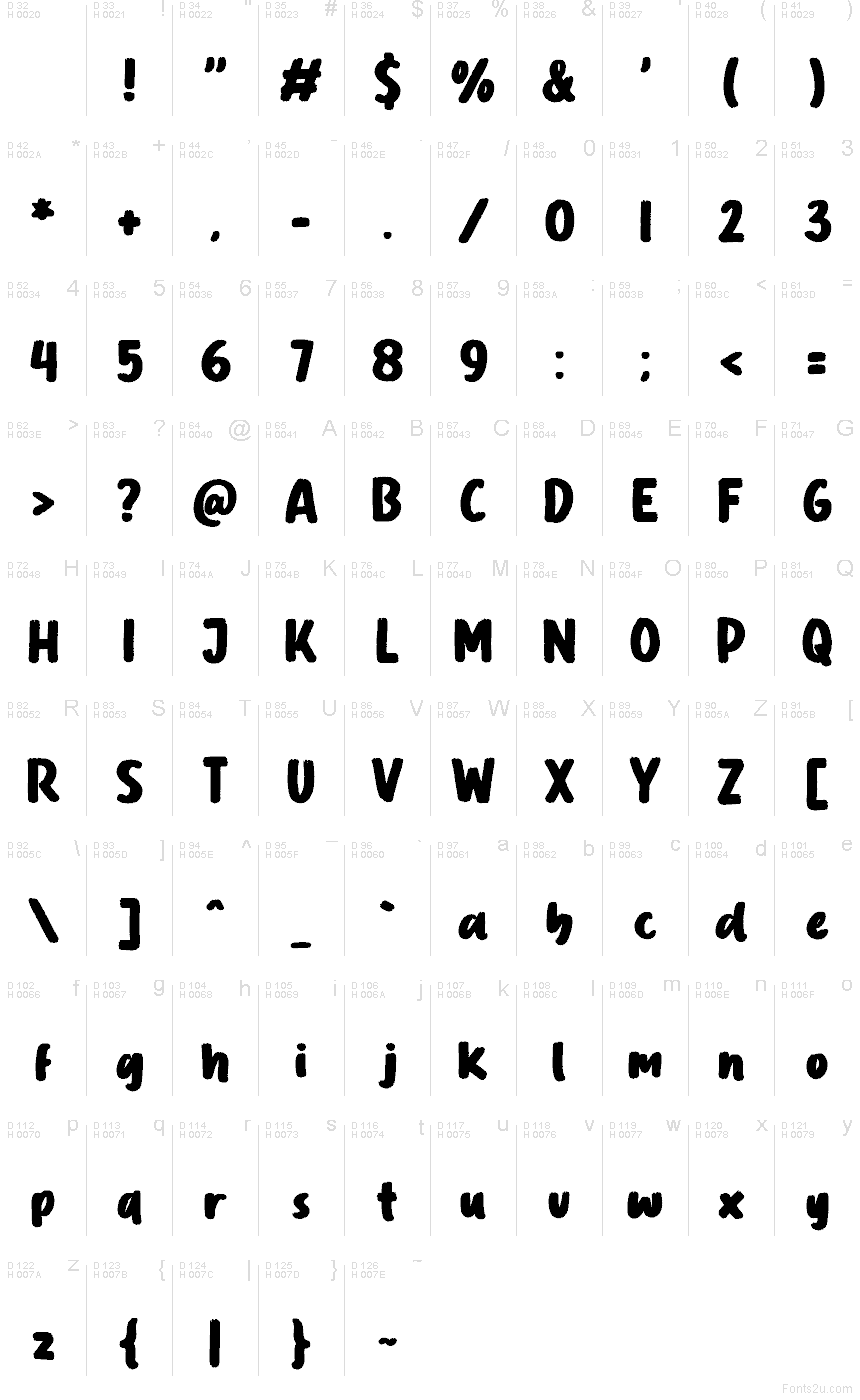
Roasted Ketchup
Roasted Ketchup font by Fikryal studio is a free brush font with a thick, inky texture that looks like it’s been painted on with a loaded marker. Each letter feels juicy and hand-done, with rounded edges and slightly irregular strokes that give it a playful, saucy attitude. The bold, compact forms stay highly readable even at smaller sizes, while still carrying that messy, finger-painted charm up close.
Using Roasted Ketchup, you get a lively brush script that shines on food packaging, snack and beverage labels, kids’ products, posters, social media graphics, and casual branding. This free font works beautifully when you let it take center stage in headlines, then support it with a clean sans serif for body text. Try it large and close together for a fun, energetic, “squeezed out of the bottle” feel.